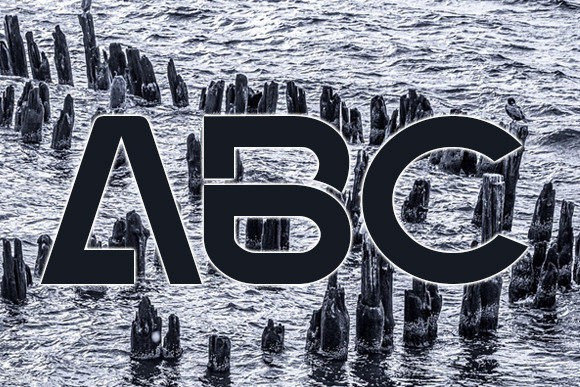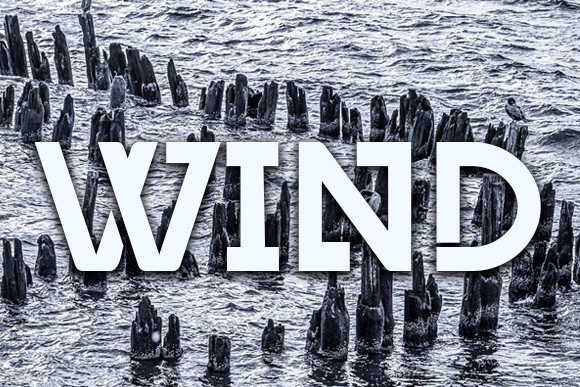
Disorder Display Font
This is a unique display typeface perfect for headlines, big text, branding, logotypes & display usage. This all-caps typeface can be an excellent choice for creating outstanding logos, promotional content, and marketing graphics that can bring uniqueness and freshness at its level best.